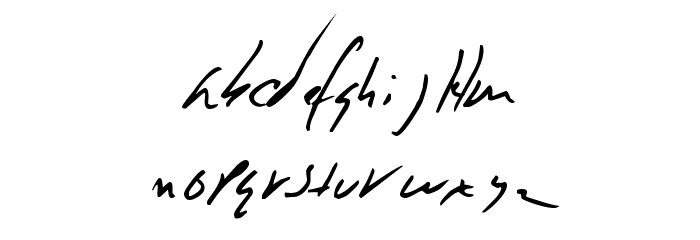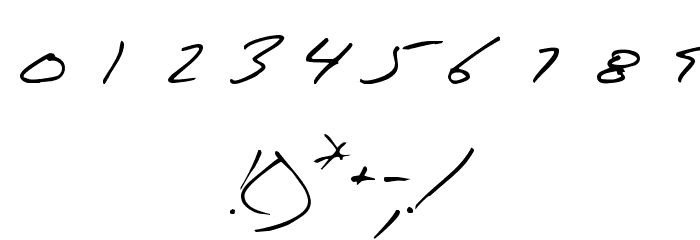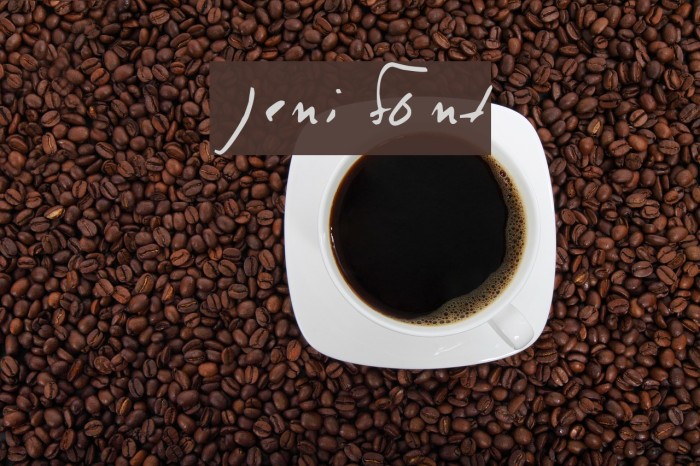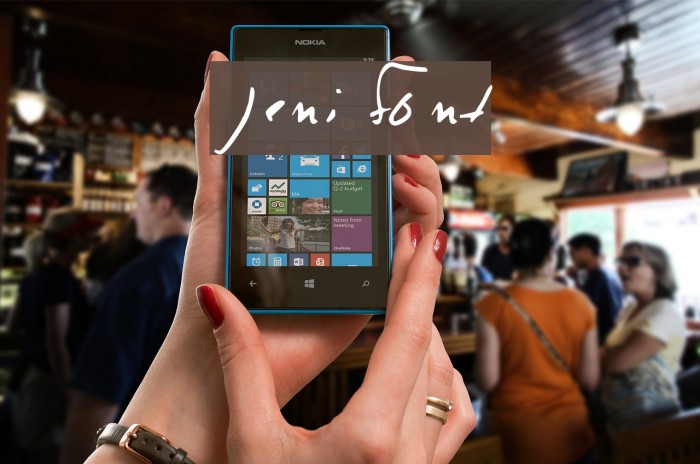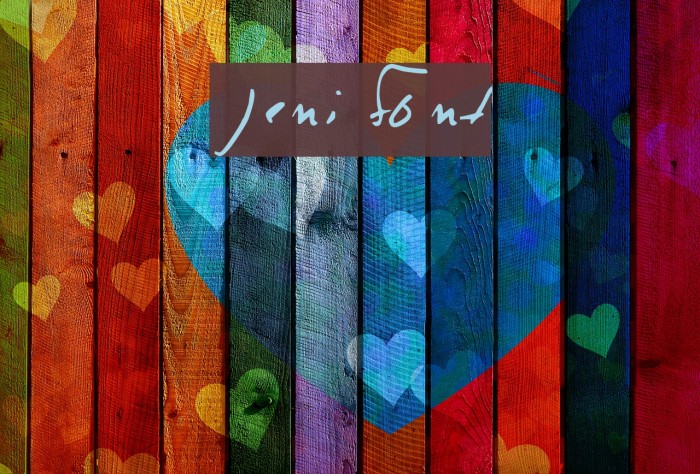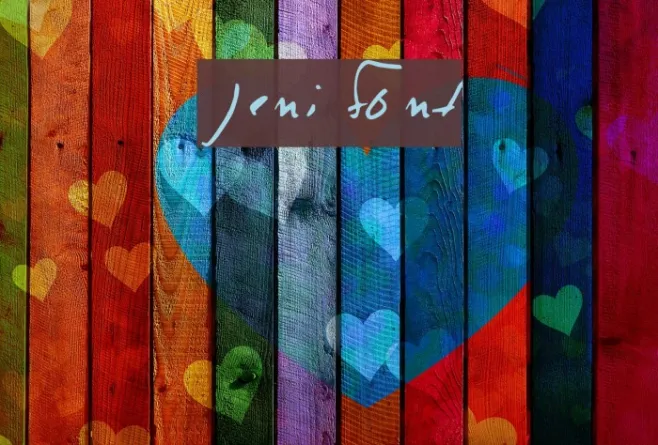
jeni Font
This font exhibits a dynamic and expressive handwritten style, characterized by fluid and spontaneous strokes. The letters are crafted with a sense of movement and individuality, making each character unique. The uppercase letters maintain a consistent height, while the lowercase letters vary in size, adding to the font's organic feel. The numerals are distinct and maintain the same lively quality as the alphabet. Special characters are creatively integrated, enhancing the font's artistic appeal. Overall, this font captures the essence of personal handwriting, making it ideal for projects that require a personal touch.
A dynamic and expressive handwritten font with fluid strokes.
- Proposed Projects: Ideal for personal notes, invitations, greeting cards, and artistic projects.
- Use Case: Logos, Invitations, Artistic projects